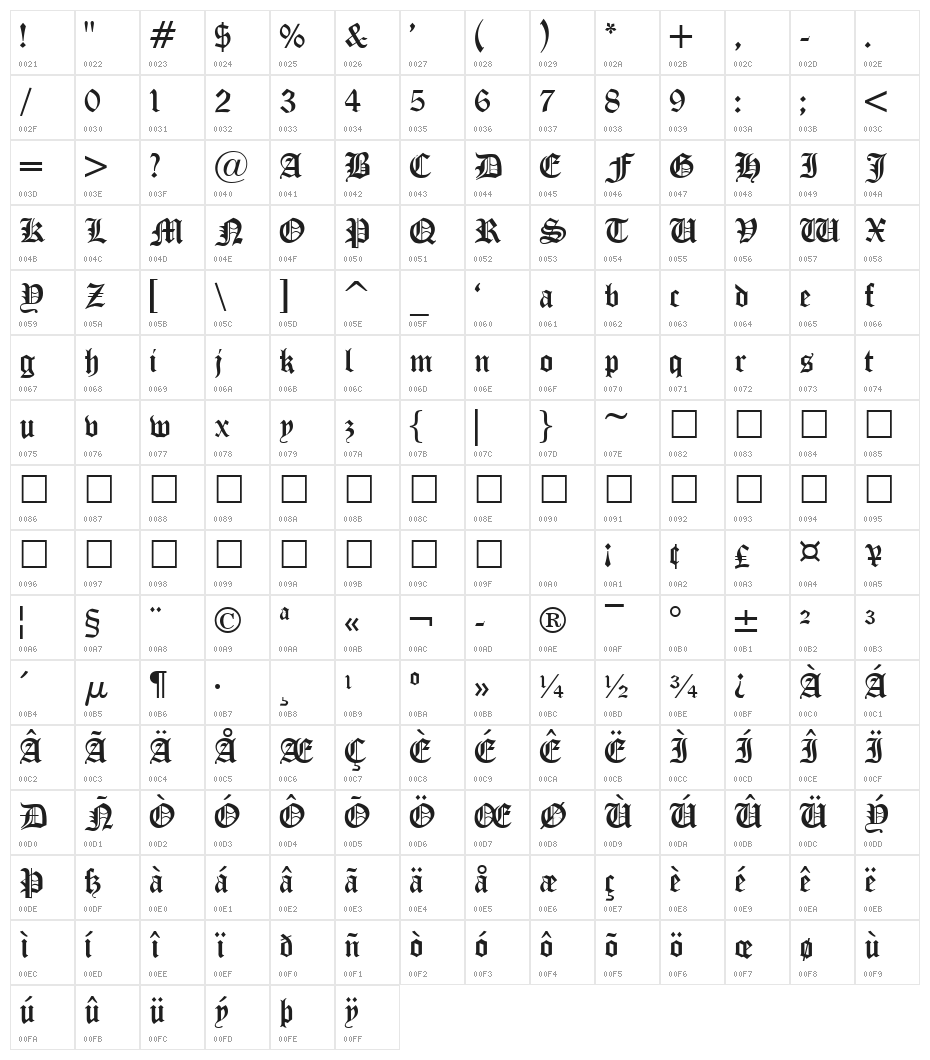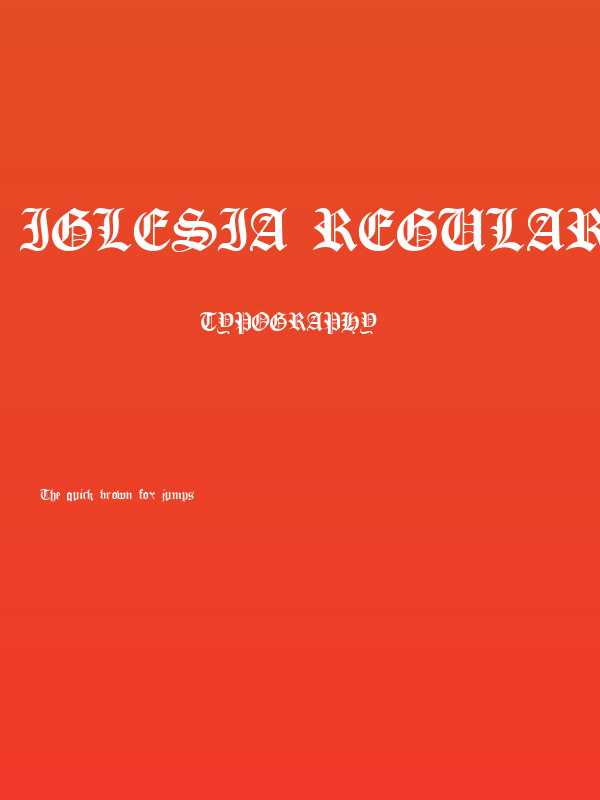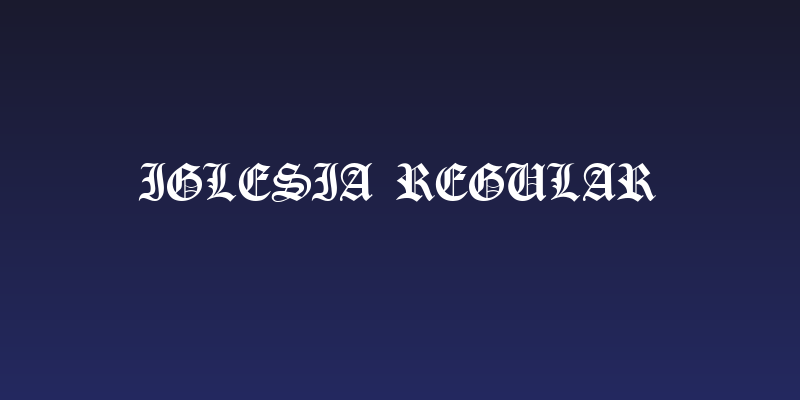
Iglesia Regular Font
| Caso d'uso | Headlines, Logos, Decorative text |
| Progetti proposti | Ideal for historical documents, wedding invitations, book covers, and branding that requires a traditional or medieval touch. |